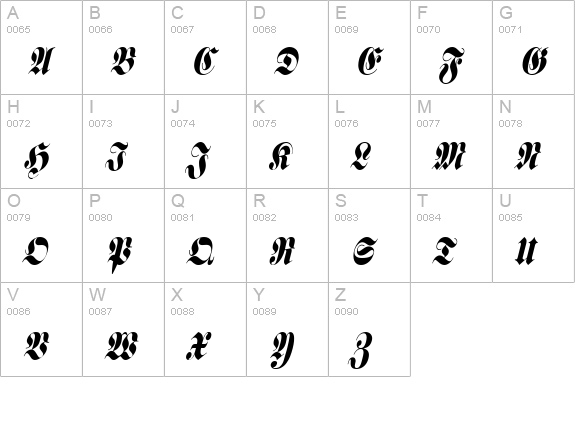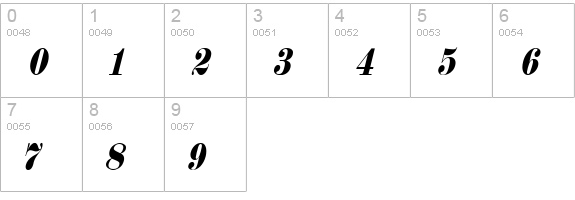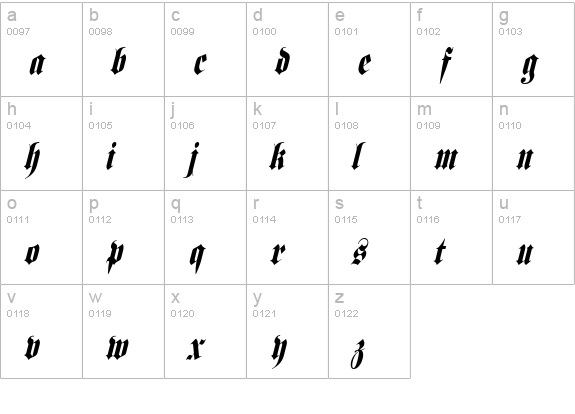
Frank Condensed Italic Font Details
Frank Condensed Italic is a distinctive, condensed-width, italic variant in the Frank typeface family \xE2\x80\x94 well suited to design and typography projects.
Frank Condensed Italic is a sleek and modern font that exudes elegance and sophistication. With its unique italicized style, this font is perfect for creating eye-catching designs that demand attention. The condensed form adds a touch of refinement, making it ideal for projects where space is limited but impact is needed. The flowing curves and slanted nature of Frank Condensed Italic give it a dynamic and stylish appearance, making it a versatile choice for a wide range of design applications. Whether used for headings, titles, or body text, this font is sure to make a statement. Best of all, Frank Condensed Italic is available for free download at FontsMarket.com. This means you can add this stunning font to your collection without any cost, allowing you to elevate your design projects with a touch of sophistication and flair. Don't miss out on the opportunity to enhance your designs with the striking beauty of Frank Condensed Italic.